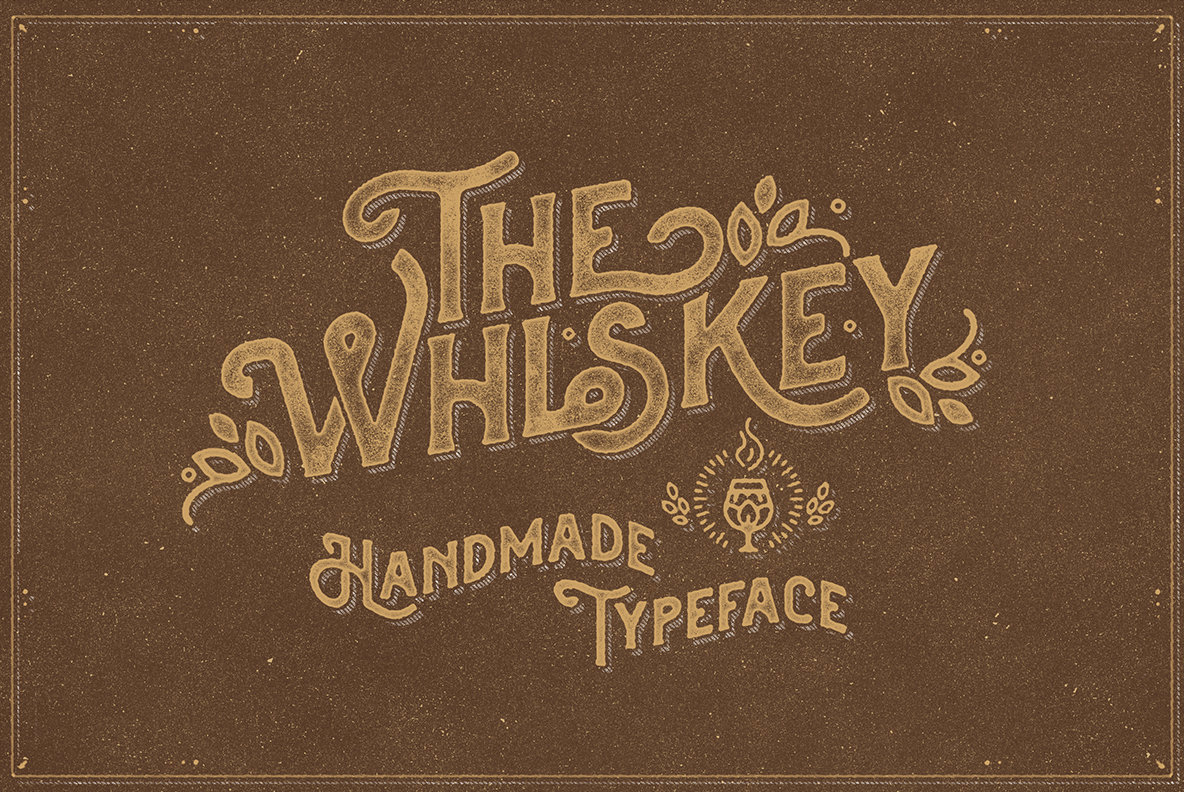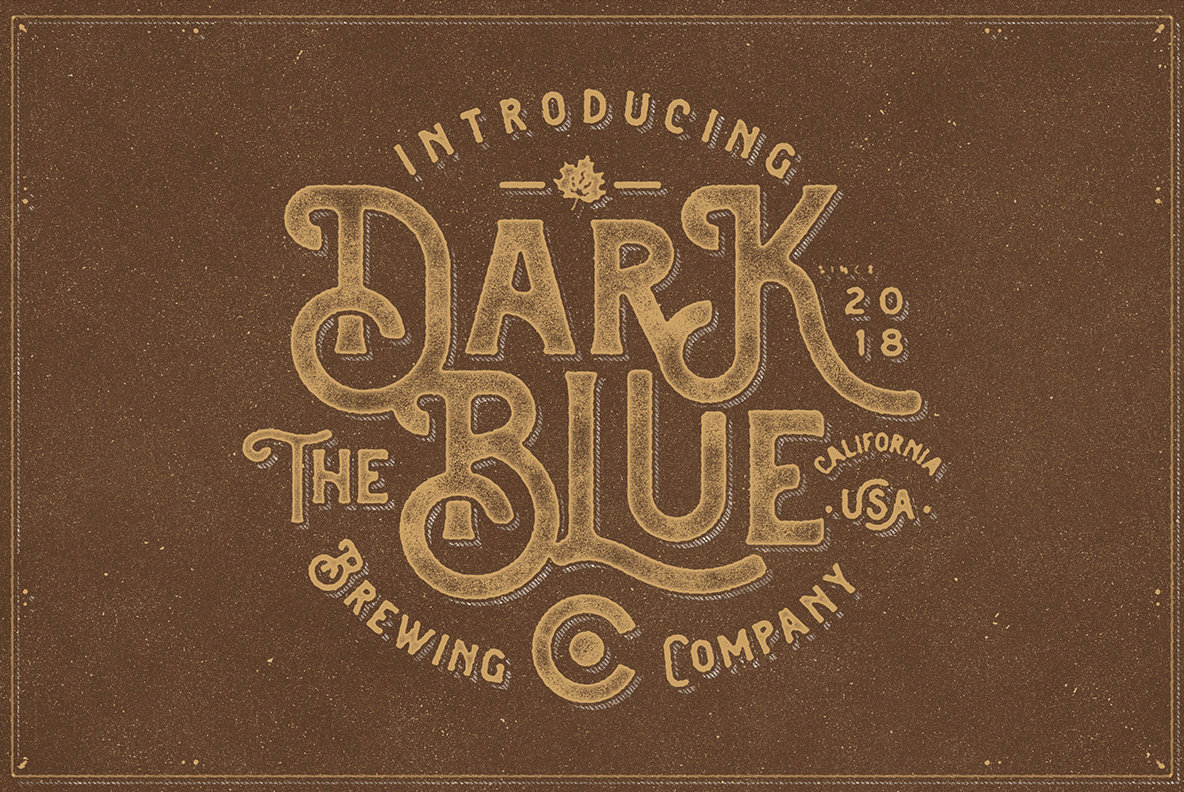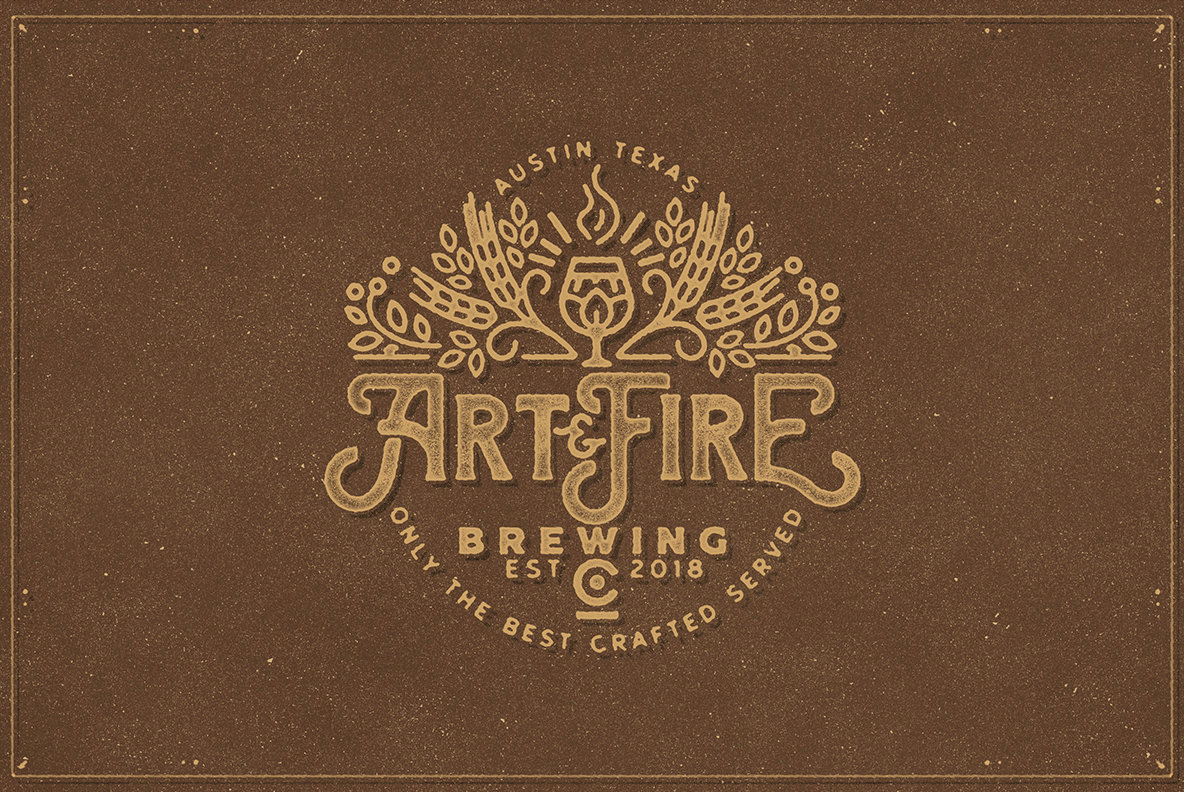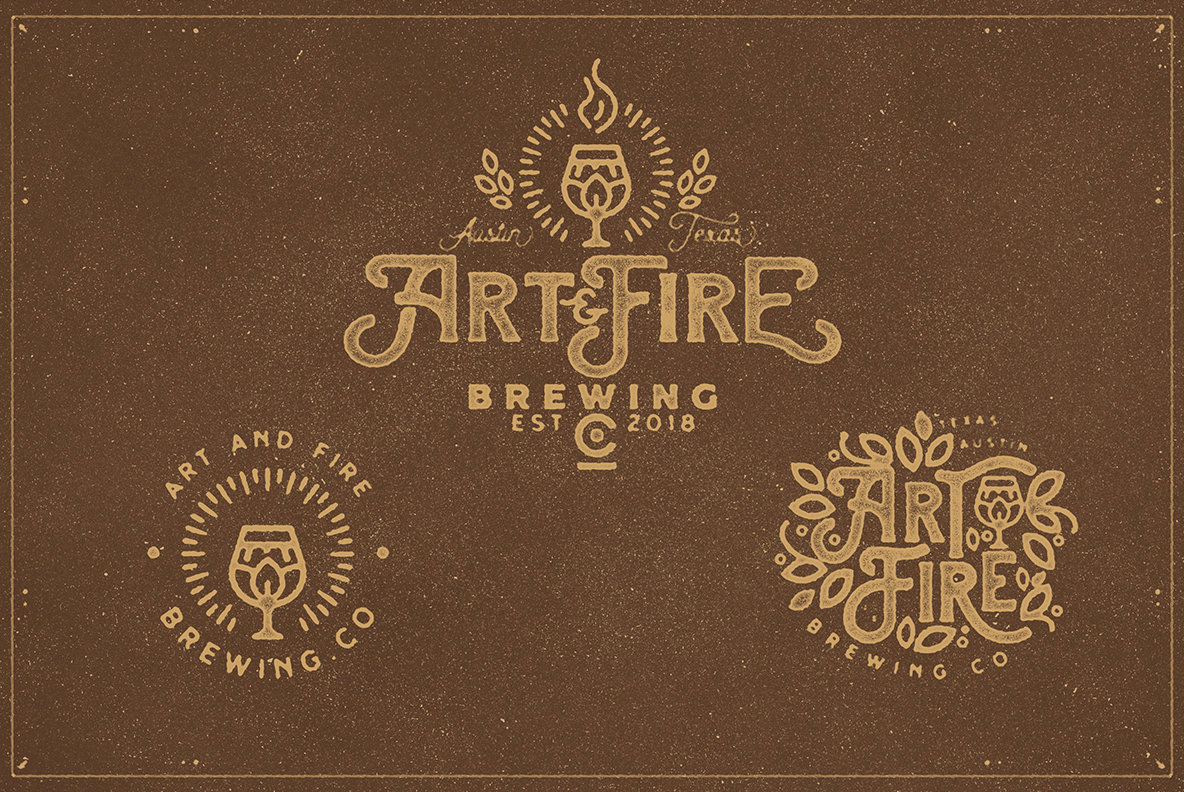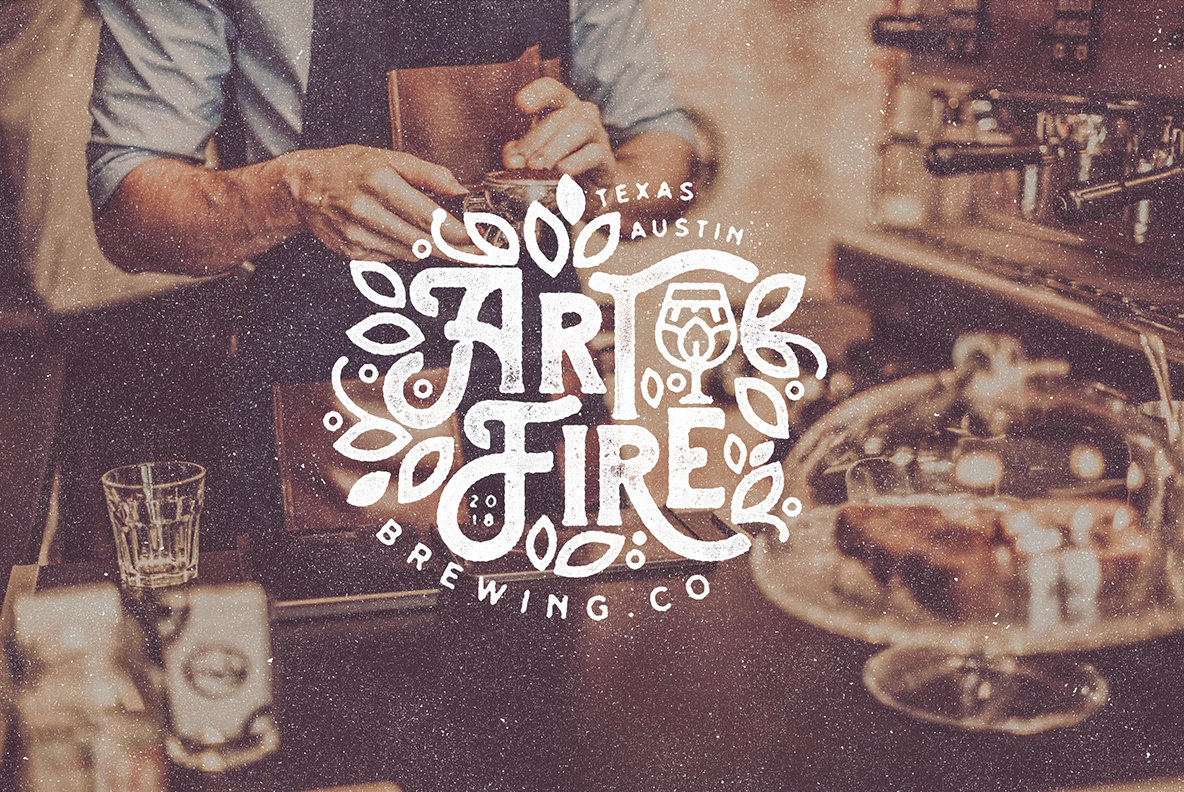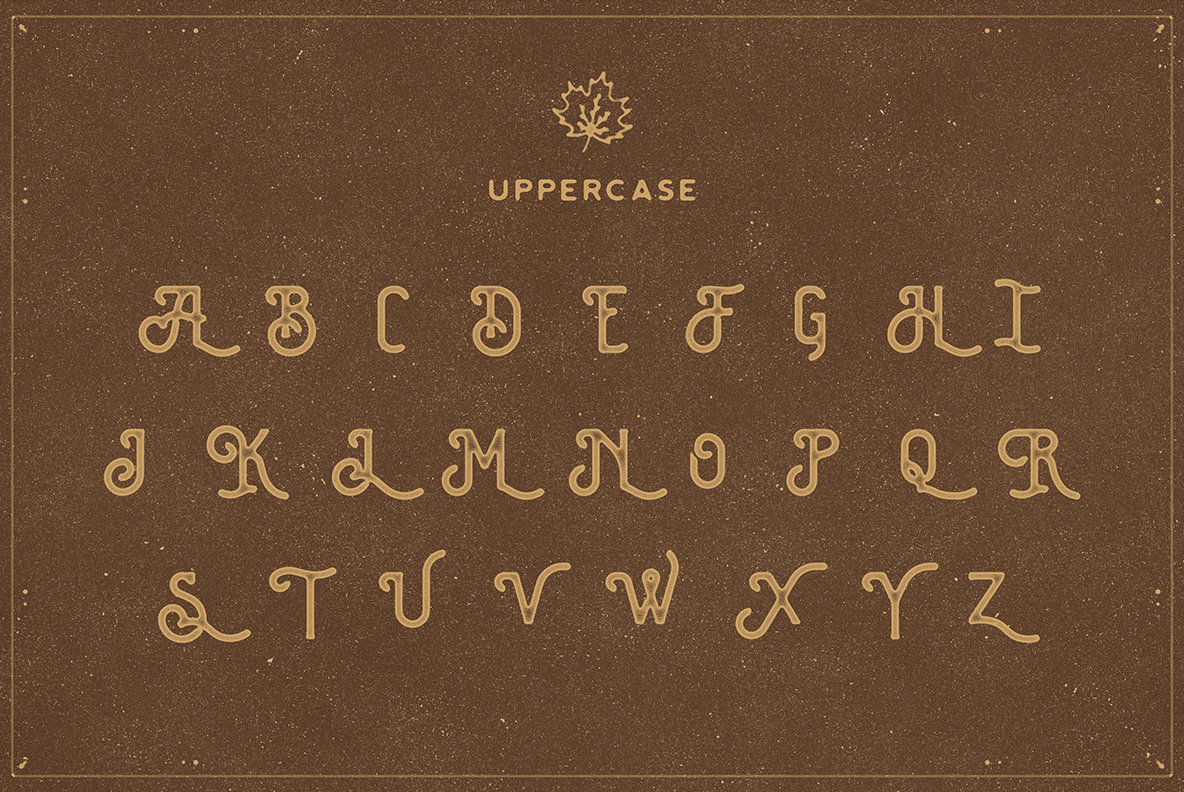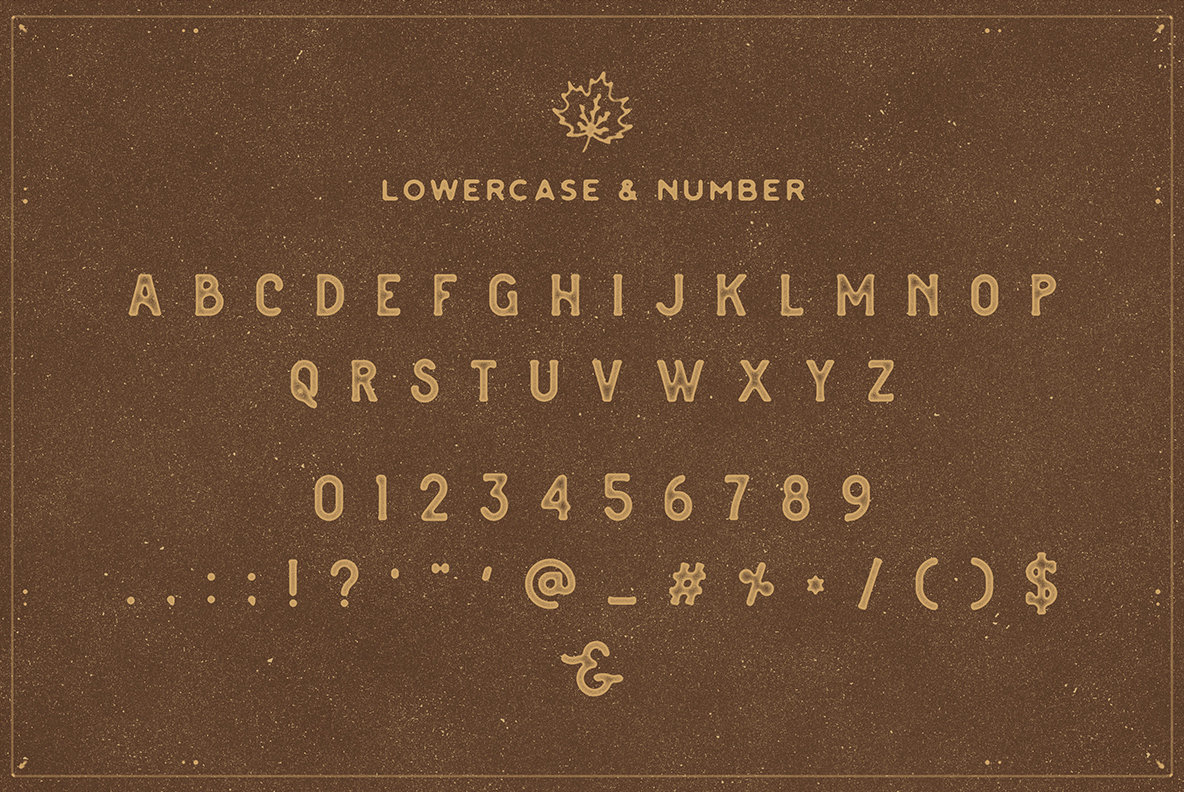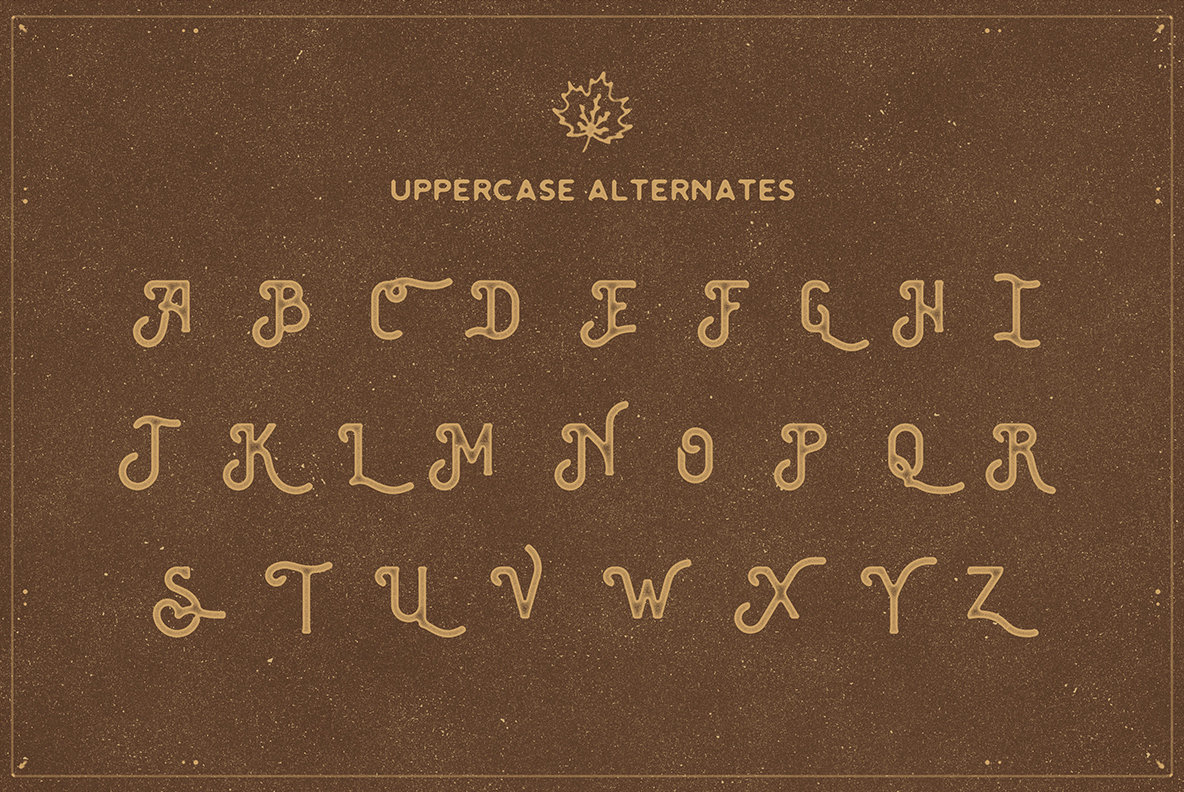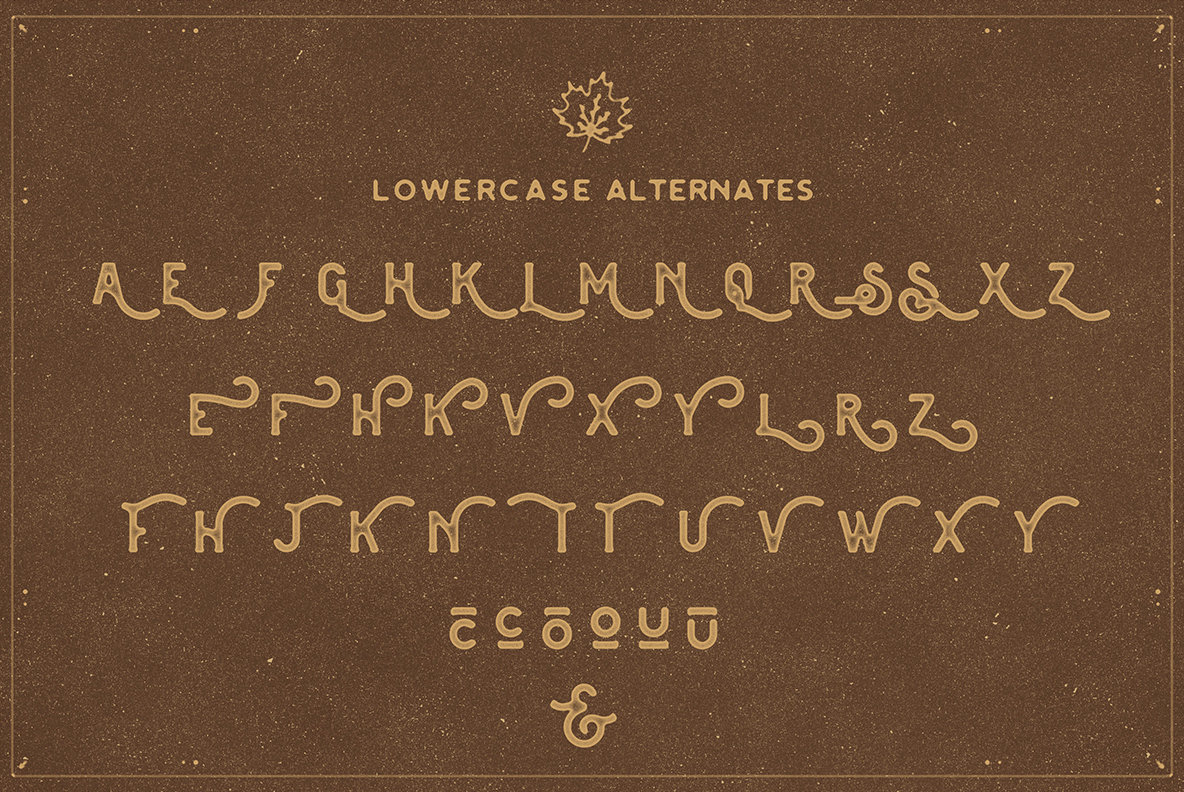
The Brewski Textured Font
Brewski Textured
Inspired by the elegance of early 20th-century brewery packaging and beer advertising, Brewski Textured offers a unique blend of nostalgia and creative flair. Its distinct textured appearance, complemented by diverse alternate characters and ornamental elements, makes it an ideal choice for designs seeking a vintage touch. Whether applied to logos, headlines, or packaging, this typeface exudes authenticity and charm. Brewski Textured features stylistic alternates and contextual alternatives that empower designers with the flexibility to mix and match letter pairs. This adaptability ensures that each project can be tailored to its specific aesthetic requirements. Furthermore, its applications range from t-shirts to posters, ensuring versatility across various mediums.Brewski Textured: Vintage-Inspired Typeface